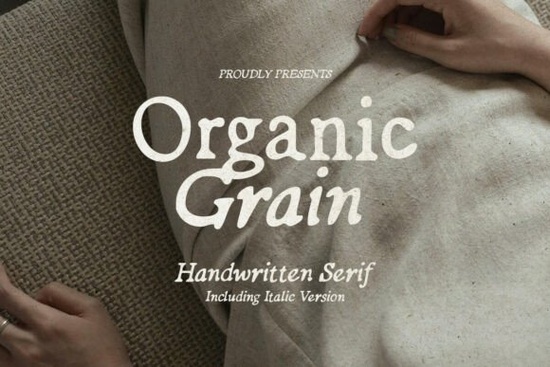
When you need a typeface that brings a raw, hand-crafted feel to your projects, exploring options like the Organic Grain Font is a great starting point. This hand-lettered serif family includes both regular and italic styles, giving you plenty of flexibility. The slightly blurred, natural texture makes it perfect for designers, crafters, and small business owners who want their work to feel authentic. Whether you are designing wedding invitations or branding materials, this typeface adds a unique, tactile quality that standard digital fonts just cannot match.
What makes this typeface stand out for branding?
The slightly distressed, organic texture gives your text a warm, approachable vibe. For small businesses and print-on-demand sellers, standing out is crucial. Using a typeface with natural imperfections helps your brand feel more human and relatable. You can use the regular weight for main headings and the italic version for subtle accents. It works beautifully on earthy color palettes, kraft paper backgrounds, and minimalist layouts. For print-on-demand sellers creating t-shirts, mugs, or tote bags, the natural texture translates really well to fabric and ceramic surfaces, giving the merchandise a vintage feel. If you are pairing it with other styles, you might also want to look into heavily distressed script options for a more rugged aesthetic, or keep it soft with a lighter, more playful choice for a nice visual contrast.
How can crafters use this for wedding invitations?
Wedding stationery requires a delicate balance between elegance and personality. The hand-lettered feel of this serif family provides a romantic, bespoke look without feeling overly formal. Crafters can use the italic style for the couple's names or special quotes, while the regular weight works well for the event details or menu items. Because of its natural blurred edges, it prints beautifully on textured paper. The key is to let the natural texture do the heavy lifting, keeping the rest of the design minimal so the typography remains the focal point. When designing the rest of the suite, you can complement it with flowing scripts like a beautiful cursive option for the envelope addressing, ensuring the entire package feels cohesive and thoughtfully designed.
What are the best practices for pairing this font?
Getting the most out of your typography choices means knowing how to mix styles. Since this typeface has a lot of character and texture, it pairs best with clean, simple sans-serifs or highly legible serifs. Remember that contrast is your best friend. If your main typeface is highly textured and organic, your secondary font should be crisp and geometric to prevent the design from looking messy.
- Keep the body text simple: Use a clean, easy-to-read sans-serif for paragraphs so the textured headings stand out.
- Play with weights: Mix the regular and italic versions of your main typeface to create hierarchy without adding new fonts.
- Mind the spacing: Give textured letters plenty of breathing room so the blurred edges do not bleed into each other.
If you need another hand-drawn option to test in your pairings, checking out this elegant hand-drawn script can give you a good sense of how different organic styles interact on the page. For more inspiration on how other creators are using Organic Grain in their portfolios, browsing community galleries is always a helpful next step.
Quick design checklist
Before you finalize your next design project, run through this quick checklist to ensure everything looks perfect:
- Check readability: Ensure the blurred edges are still legible at your intended print or screen size.
- Test print: Always print a physical proof on your chosen paper stock to see how the texture holds up in real life.
Take a few minutes to sketch out your layout with both the regular and italic styles to see which one best serves your specific message and audience.